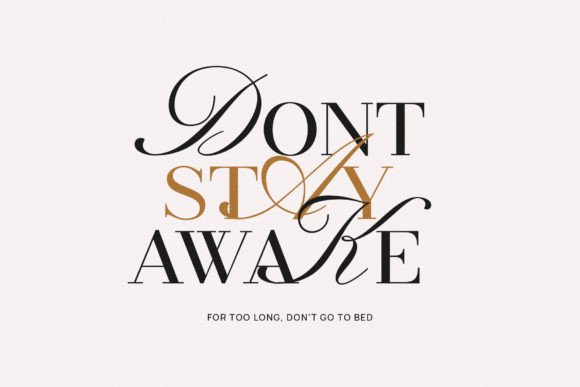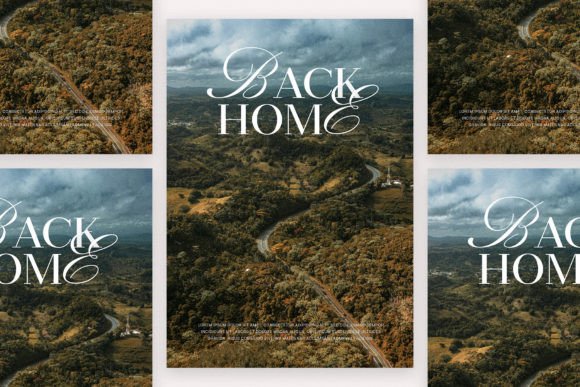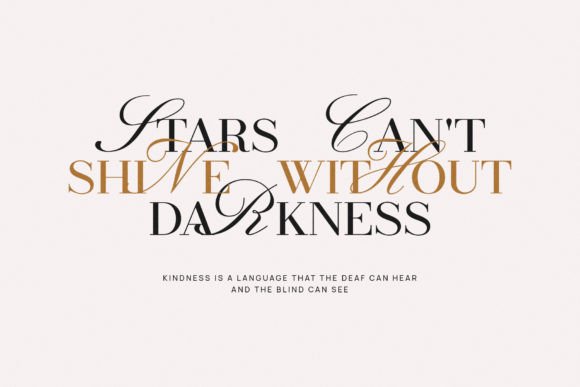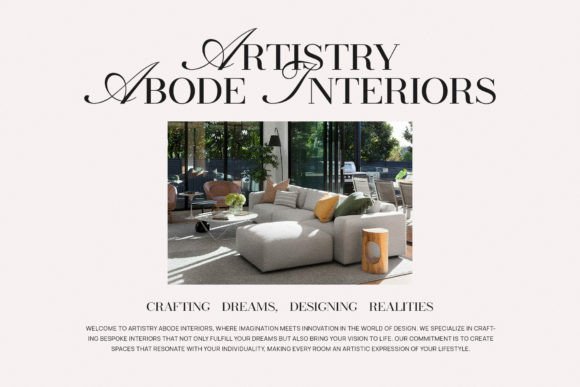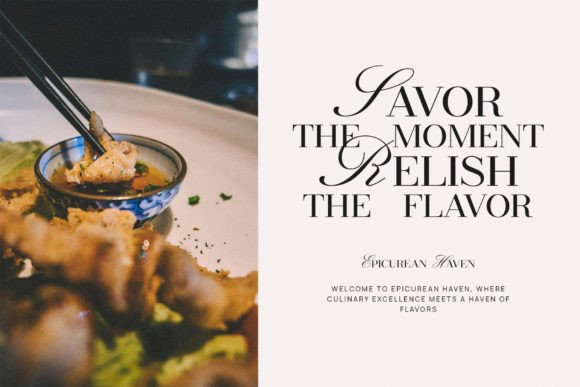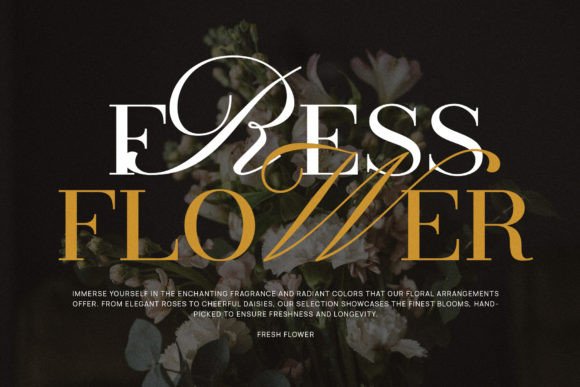
Introducing Back Home Font: Elevate Your Designs with Elegance
In the world of typography, fonts play a crucial role in conveying the tone and personality of a brand or design. For designers and crafters seeking a sophisticated and modern touch, the Back Home font is an excellent choice. This serif font combines classy and contemporary elements, making it perfect for a wide range of applications.
What is Back Home Font?
Back Home is a thoughtfully crafted serif font that exudes elegance and refinement. Its unique blend of traditional and modern styles makes it an versatile choice for various design projects. The font’s classic serifs and clean lines create a sense of sophistication, while its modern twist adds a touch of freshness and creativity.
Key Features of Back Home Font
- Serif Font: Back Home features traditional serifs that add a touch of classic elegance to your designs.
- Classy and Modern Style: The font’s unique blend of classic and modern elements makes it perfect for designs that require a sophisticated touch.
- Highly Versatile: Back Home is suitable for a wide range of applications, from branding and logos to wedding designs, social media posts, and more.
- Elegant Touch: The font’s refined lines and classic serifs add an air of sophistication to any design.
Use Cases for Back Home Font
Back Home font is an excellent choice for various design projects, including:
- Branding Projects: Establish a strong brand identity with a sophisticated font that exudes elegance and refinement.
- Logos: Create a lasting impression with a custom logo that incorporates the Back Home font.
- Wedding Designs: Add a touch of romance and sophistication to your wedding designs, including invitations, stationery, and more.
- Social Media Posts: Elevate your social media presence with eye-catching graphics and typography.
- Advertisements: Create effective ads that grab attention with the Back Home font’s elegant and modern style.
- Product Packaging: Stand out on store shelves with beautifully designed packaging that incorporates the Back Home font.
- Product Designs: Add a touch of sophistication to your product designs, including labels, watermarks, and more.
- Invitations: Create stunning invitations that set the tone for any event or occasion.
- Stationery: Elevate your stationery designs with a font that exudes elegance and refinement.
Why Choose Back Home Font?
With so many fonts available, why choose Back Home? Here are a few reasons why this font stands out:
- Unique Style: Back Home offers a distinctive blend of classic and modern elements that sets it apart from other fonts.
- Highly Versatile: The font’s versatility makes it suitable for a wide range of applications and design projects.
- Elegant and Refined: Back Home’s classic serifs and clean lines create a sense of sophistication and refinement.
In conclusion, the Back Home font is an excellent choice for designers and crafters seeking a sophisticated and modern touch. Its unique blend of classic and contemporary elements makes it perfect for a wide range of applications, from branding and logos to wedding designs and social media posts. With its elegant and refined style, Back Home is sure to elevate your designs and leave a lasting impression.